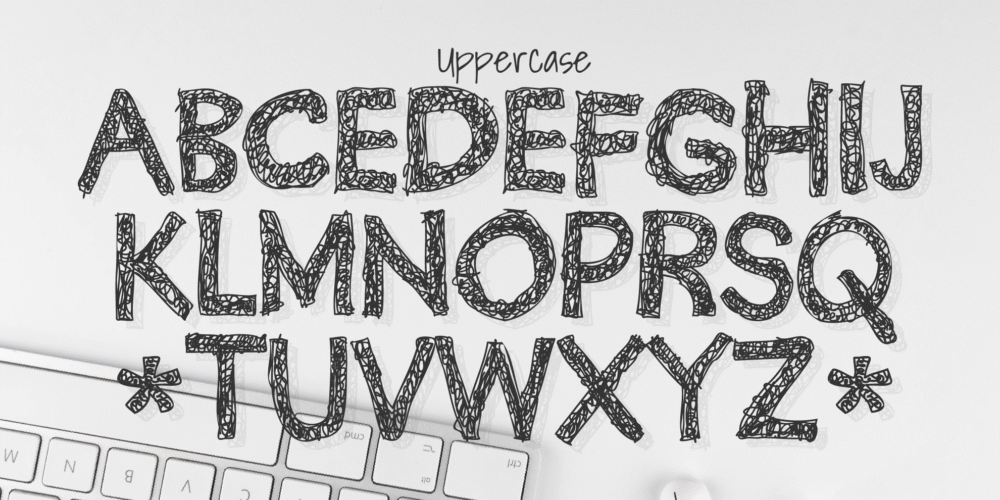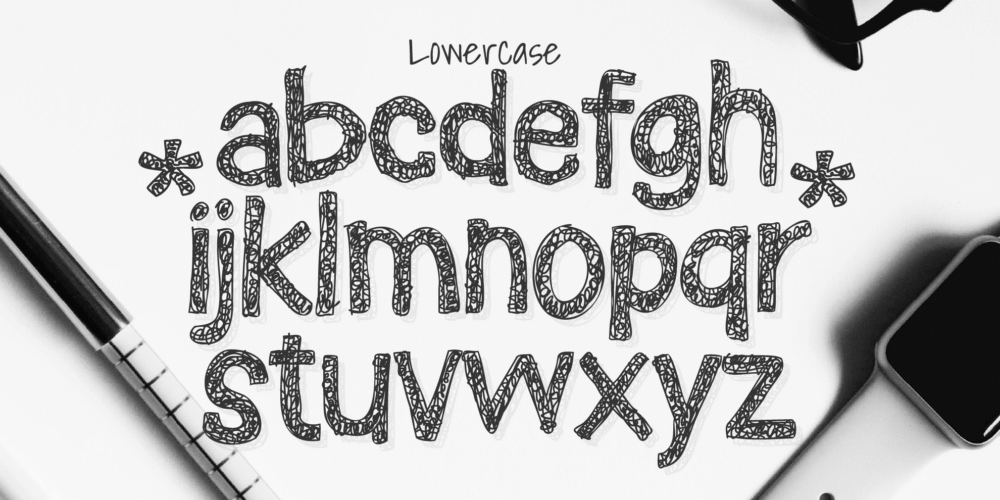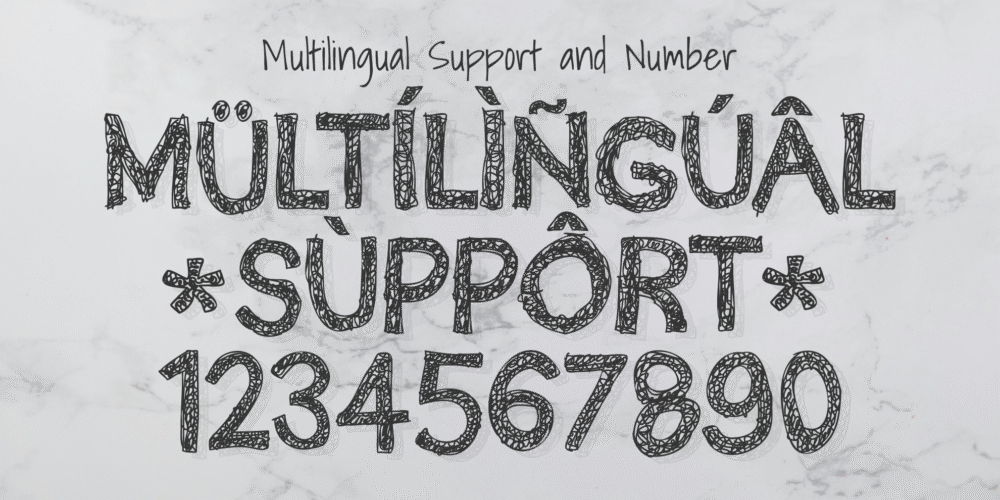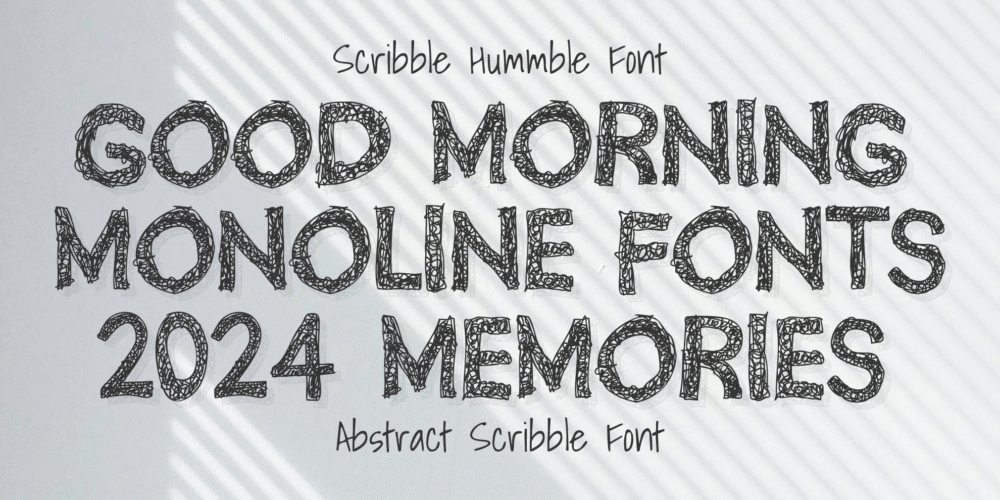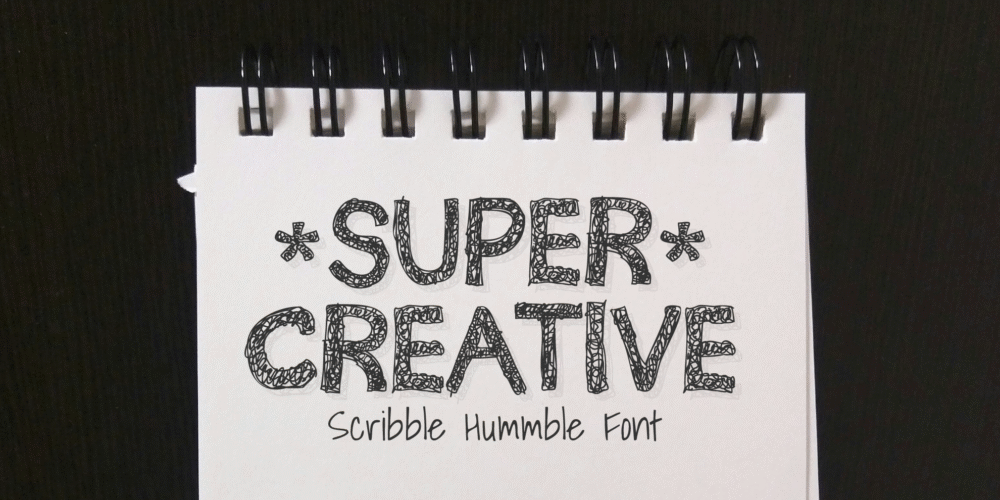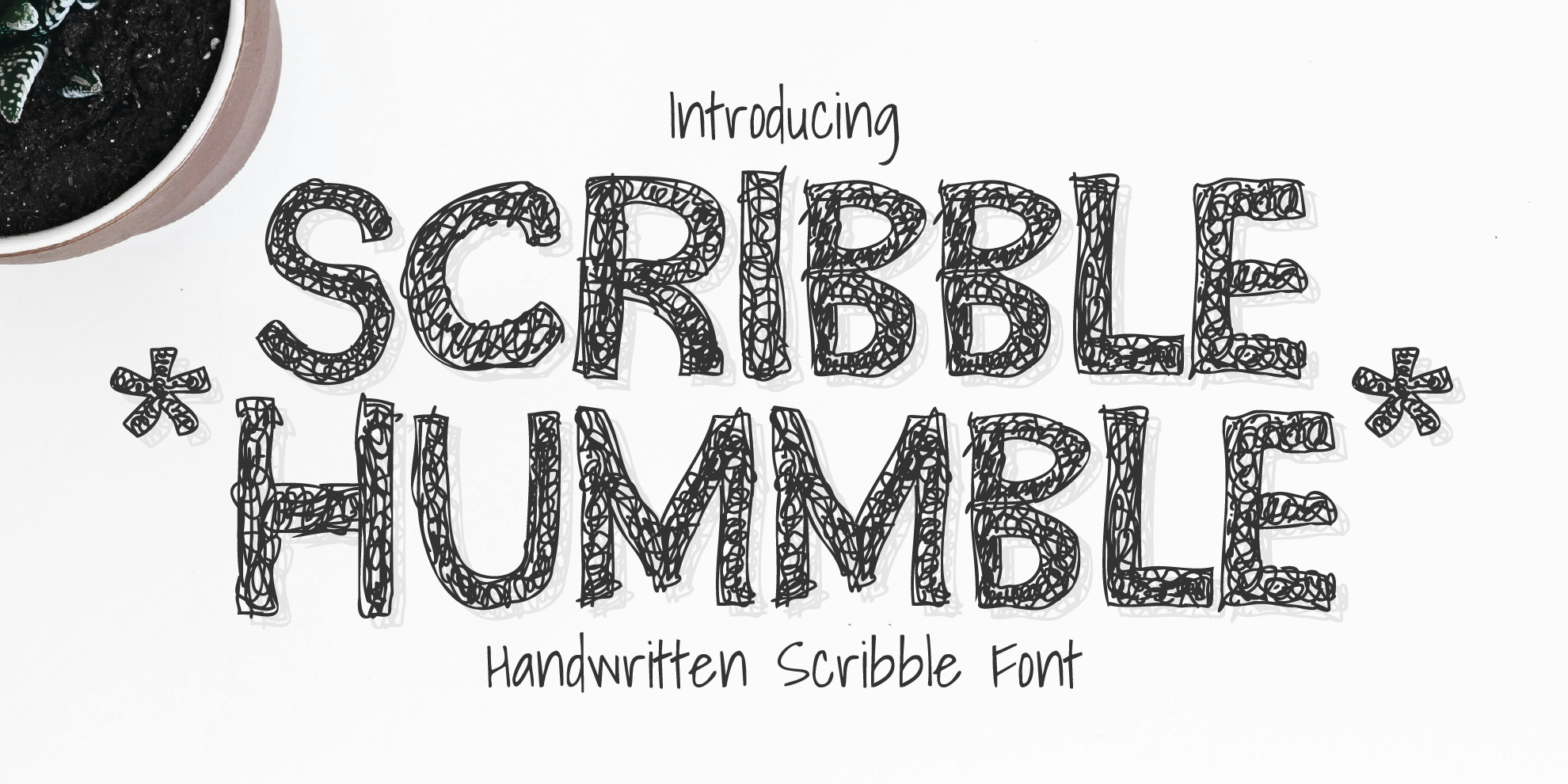
Scribble Hummble is a captivating handwritten font crafted with abstract, scribbled outlines — where every stroke feels unique and full of life. Its unconventional and irregular design radiates pure creativity and individuality, making it perfect for projects that crave a distinctive, artistic touch.
With its mesmerizing, freeform appearance, Scribble Hummble adds a bold, expressive flair to any design — whether for branding, posters, illustrations, social media, or creative editorial layouts. This font invites you to break the rules and explore a more spontaneous, authentic visual expression.
Bring your ideas to life with the raw, artistic energy of Scribble Hummble — where imperfection becomes pure inspiration.